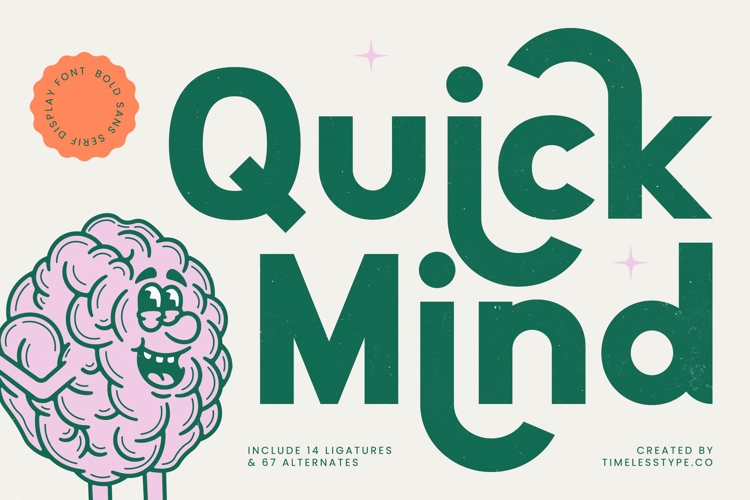
Quick Mind - Bold Sans Serif Display Font
The Quick Mind Typeface is a bold sans serif display font with a modern, fun, and playful style. Featuring 14 ligatures and 67 stylistic alternates, this font provides flexibility to create typography that is expressive, dynamic, and full of character. With its thick, clean letterforms and friendly rounded edges, Quick Mind is perfect for designs that aim to convey a cheerful, fresh, and communicative vibe.
This font is highly effective in editorial design, especially for creative posters, lifestyle magazines, and children’s book covers. The alternates and ligatures allow for visual exploration, making text layouts more engaging and attractive.
In branding and packaging, Quick Mind is an excellent choice for youth-oriented products, food & beverages, educational toys, creative startups, and digital content. Its bold and playful style builds a visual identity that feels approachable, memorable, and fun.
For entertainment and promotional design, this typeface works beautifully on event posters, creative campaigns, festival promotions, and educational materials. Its modern and friendly design ensures messages are clear, communicative, and attention-grabbing.
In the realm of digital design, Quick Mind performs seamlessly across social media content, interactive apps, website banners, and motion graphics, maintaining high readability at any screen size. With multilingual support, it is fully adaptable for international projects.
In short, Quick Mind Typeface is a bold sans serif display font designed for projects that require joy, energy, and strong visual communication. Perfect for editorial, branding, packaging, entertainment, advertising, and digital campaigns, this font transforms typography into a fun, modern, and character-rich design element.